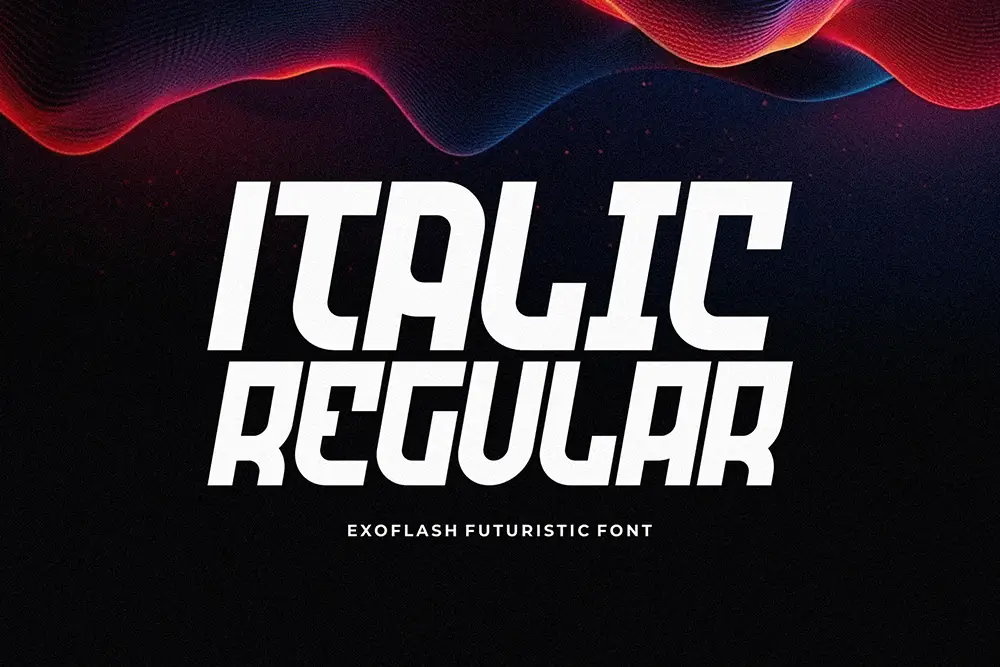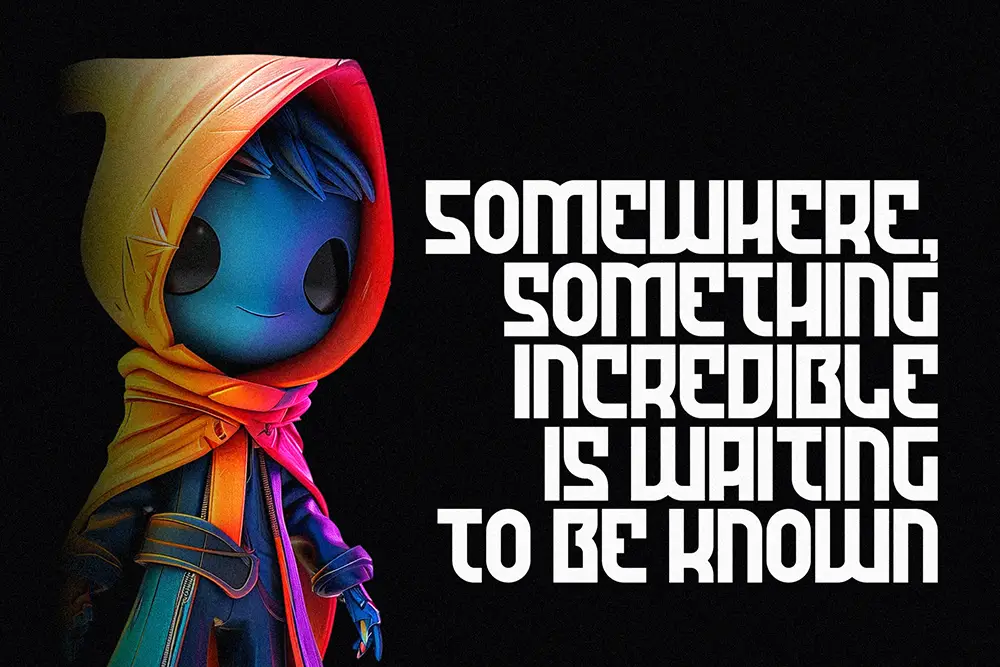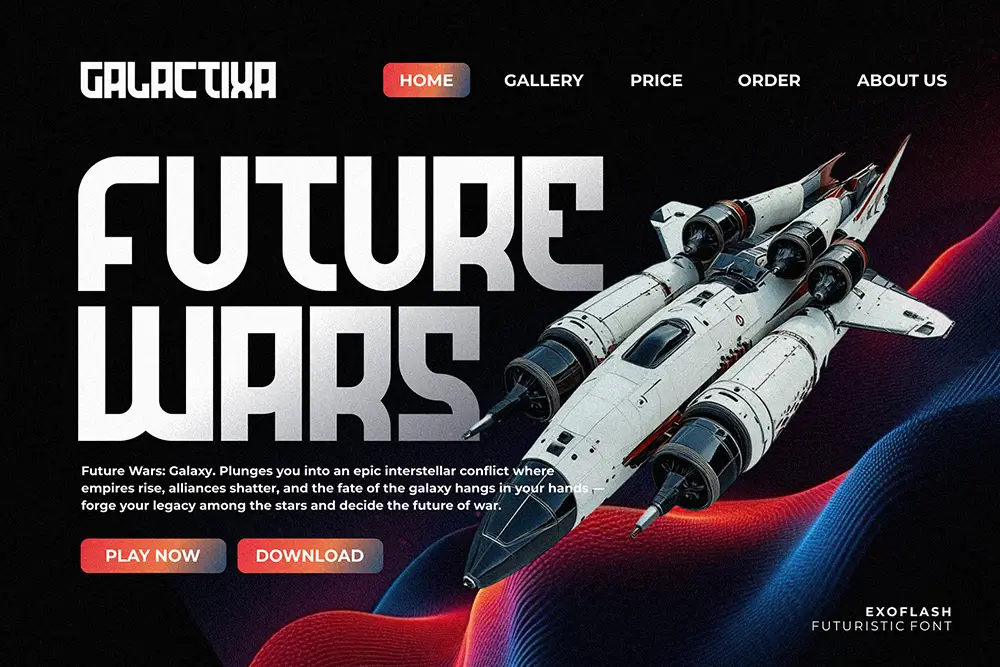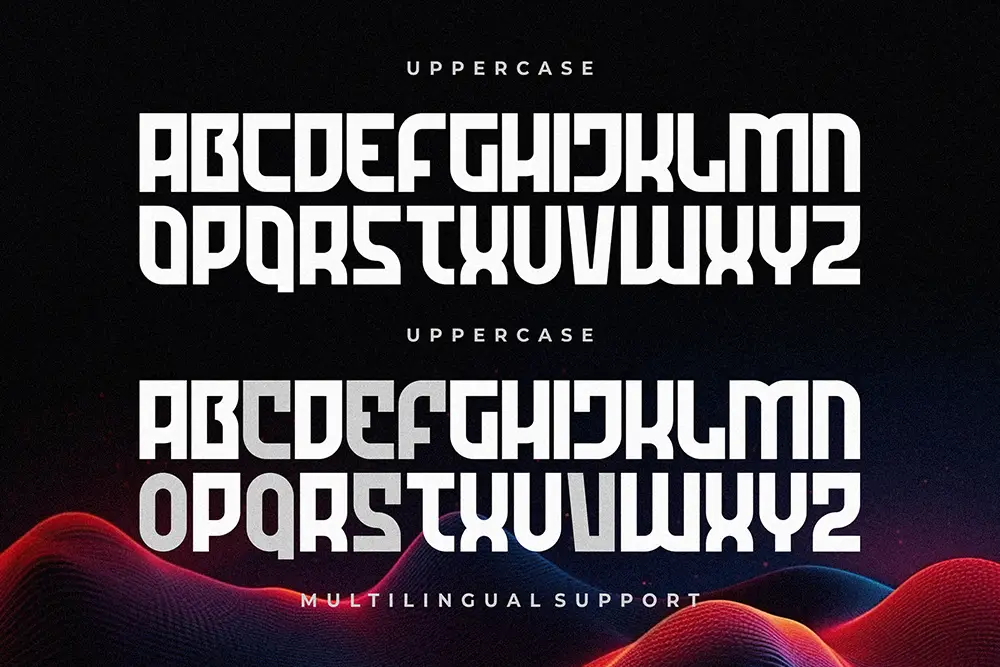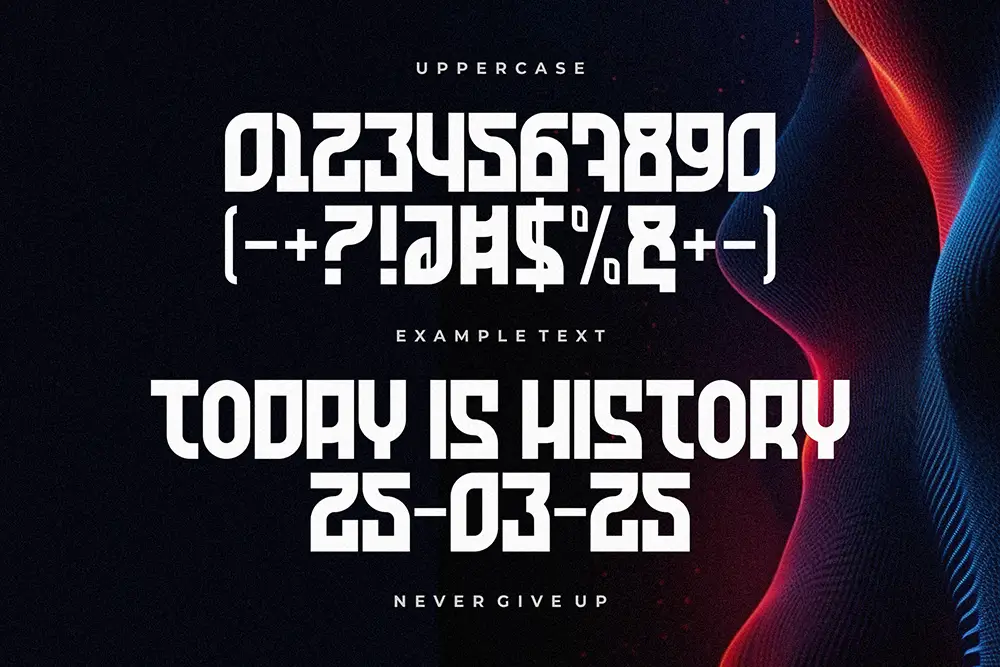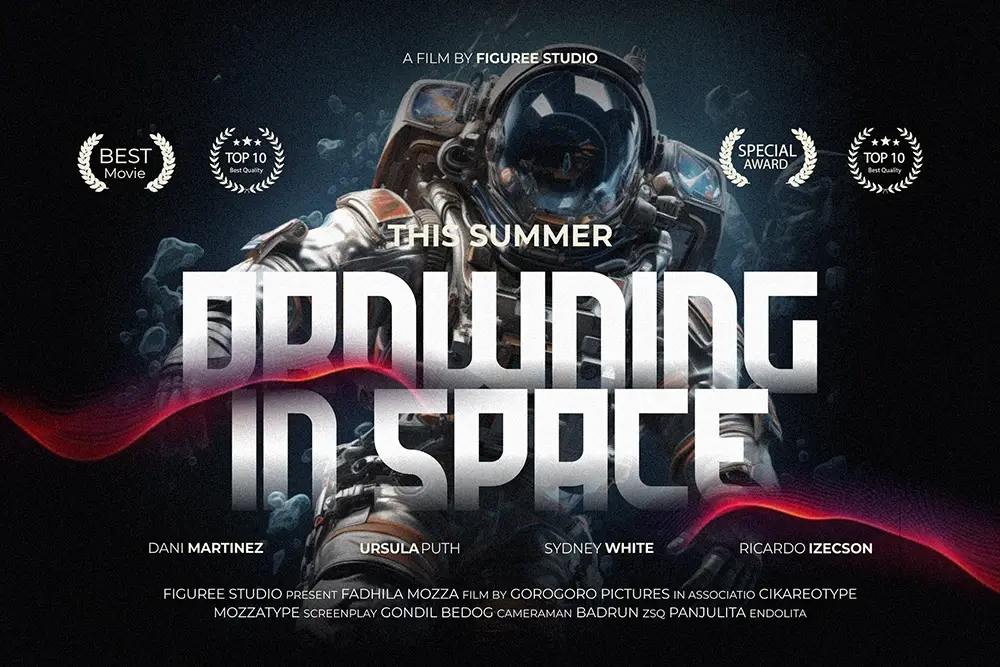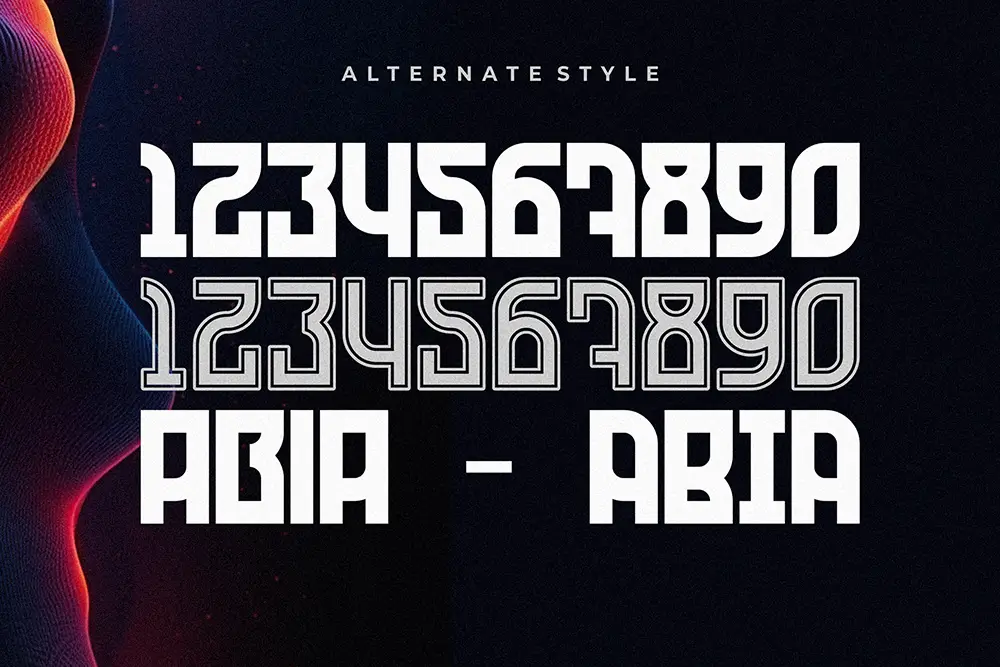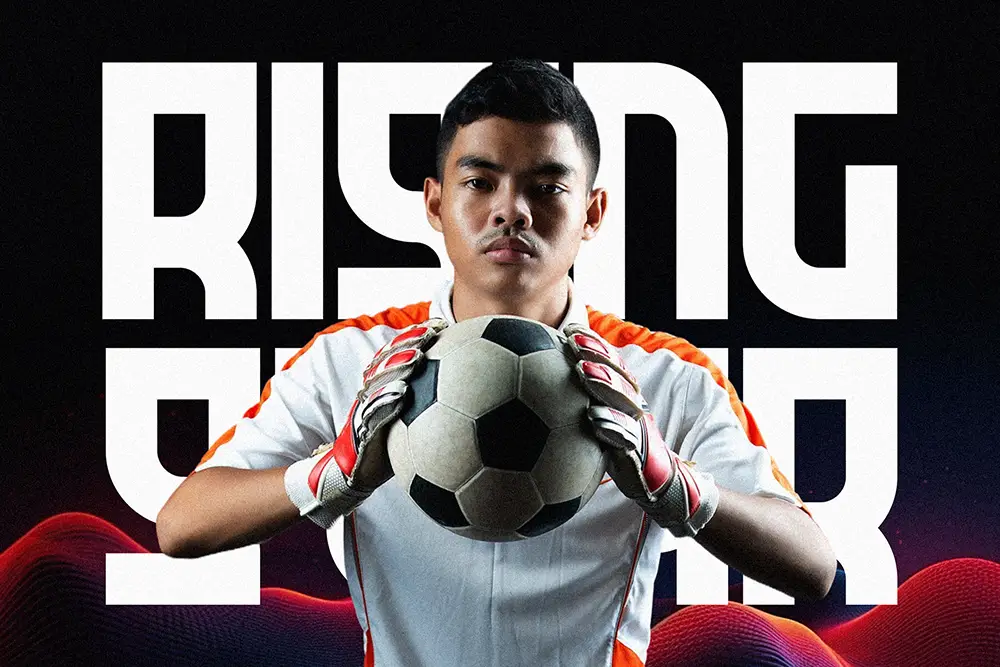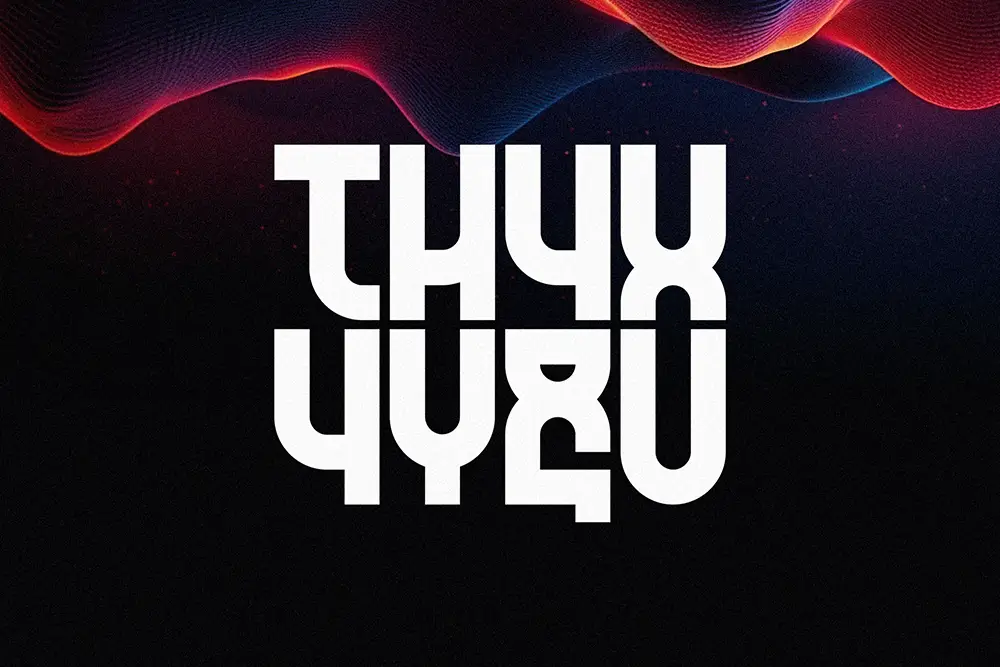
Step Into the Future with Exoflash
Fonts shape first impressions. That’s why your brand needs a typeface that looks sharp, modern, and future-ready. Exoflash brings all of that.
It’s a futuristic logo font created for tech-driven designs. With clean angles and sleek curves, it fits right into the world of sci-fi, cyber branding, and esports visuals.
Whether you’re designing for a bold startup or a digital game UI, Exoflash helps you stand out fast.
Why Designers Choose Exoflash
Geometric Precision
Each letterform is crafted with care. The shapes feel modern, digital, and clean. They bring structure and clarity, even in complex layouts.
Two Dynamic Styles
You’ll get:
- Exoflash Regular – clean, solid, and ideal for bold branding
- Exoflash Italic – fast, sharp, and perfect for tech vibes
Want more contrast? Mix both styles in one design to build tension and flow.
Best Use Cases
Exoflash fits naturally in:
- Tech logos and branding
- Gaming overlays and stream titles
- Futuristic UI/UX headers
- Sci-fi packaging and ads
- Any project that needs a strong digital vibe
Key Features
- Regular and Italic styles
- Multilingual support
- Works great for print and web
Want to future-proof your branding? Exoflash is made for creators who dare to lead.
It’s bold, fast, and built to perform in a digital world.